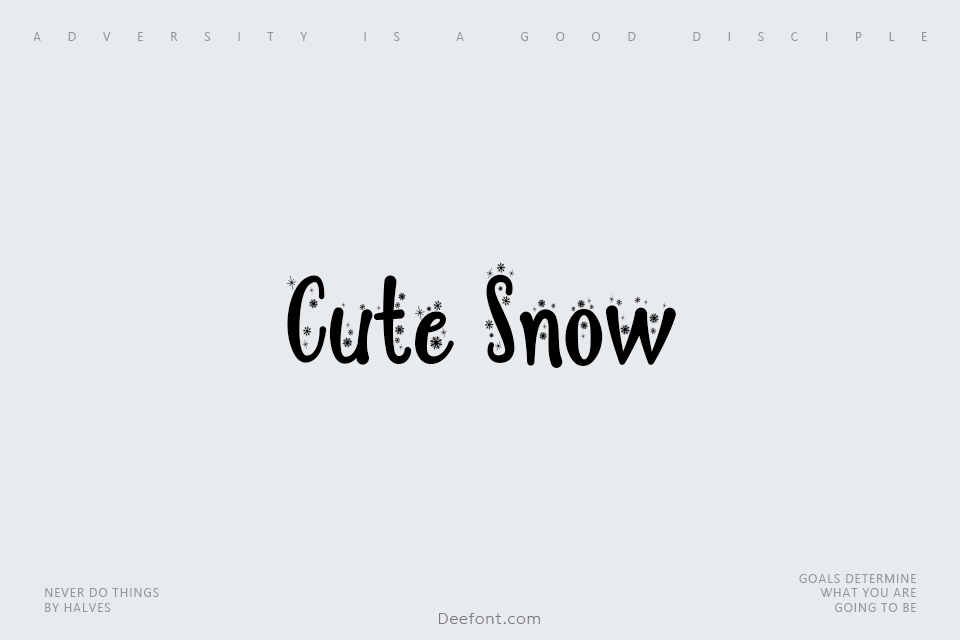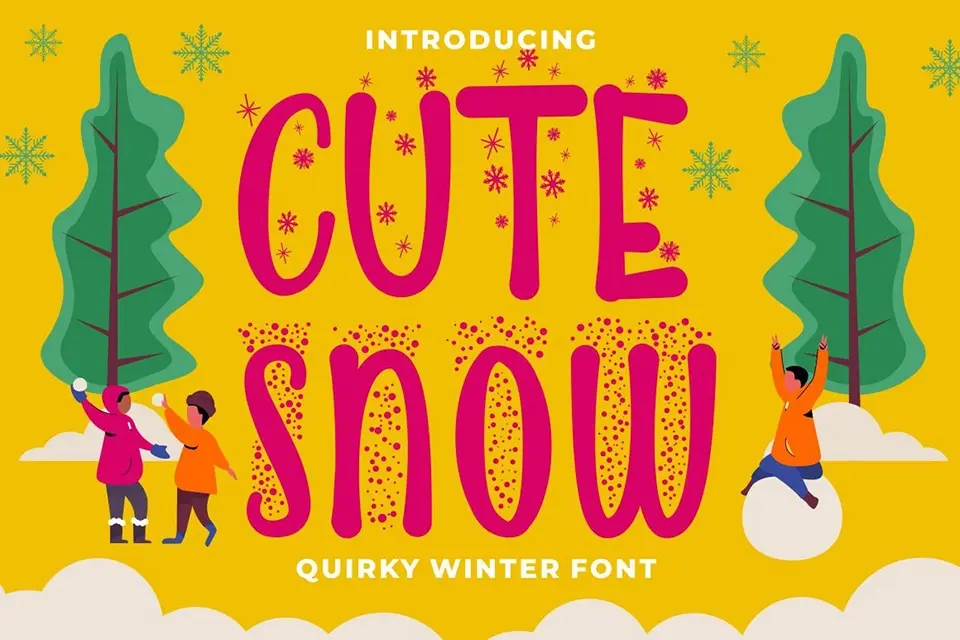
Cute Snow Font
Cute Snow is an adorable and whimsical display typeface that captures the enchanting charm of winter wonderlands. Featuring soft, rounded letters with playful snowflake embellishments, this font evokes warmth and coziness perfect for holiday greetings, children’s books, winter-themed designs, and festive projects. Its cheerful, bubbly style brings magical charm to any creative endeavor.